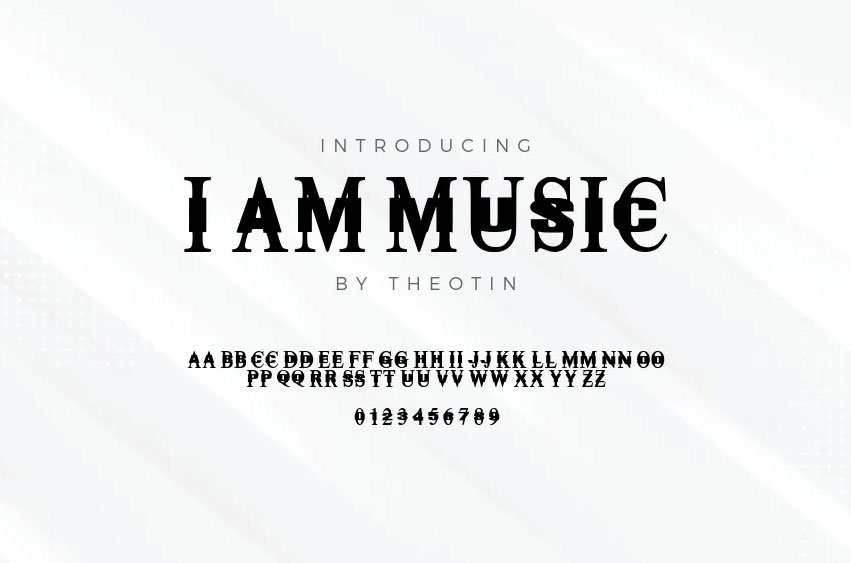
I Am Music Fontis a unique font that combines elements of both serif and sans-serif styles. This modern typeface draws inspiration from Playboi Carti’s influential album “MUSIC,” resulting in a sleek and contemporary design.